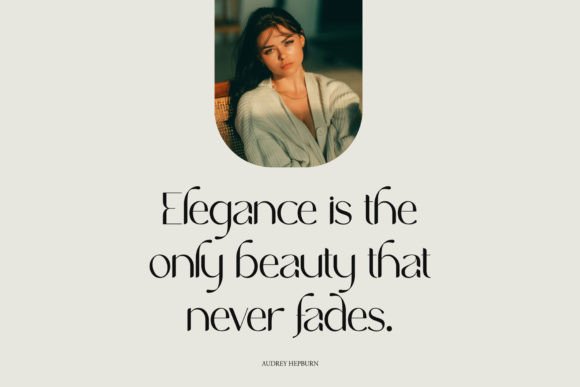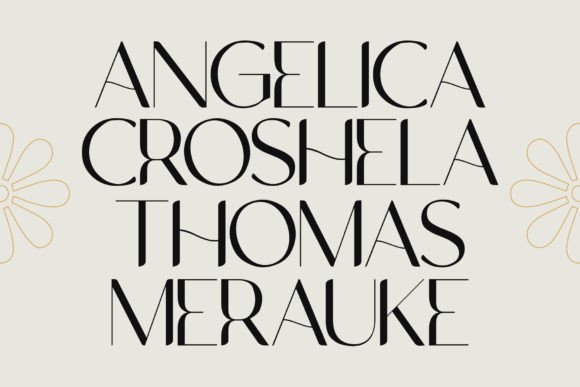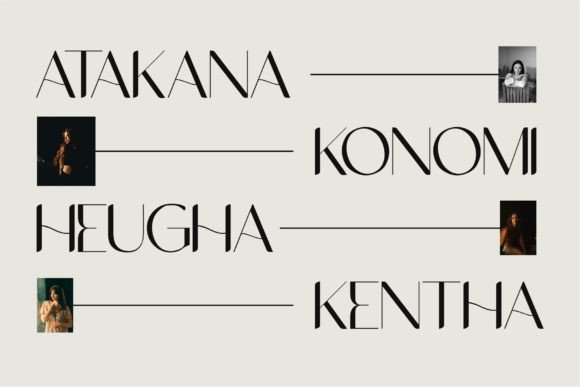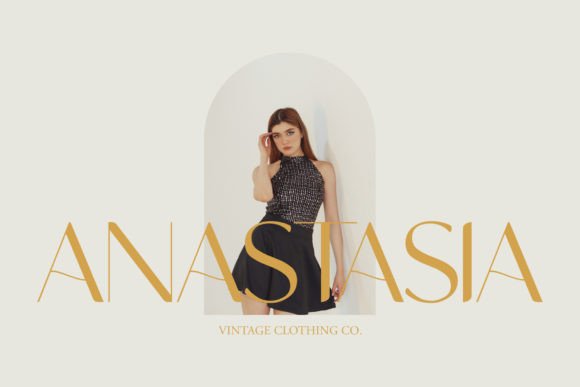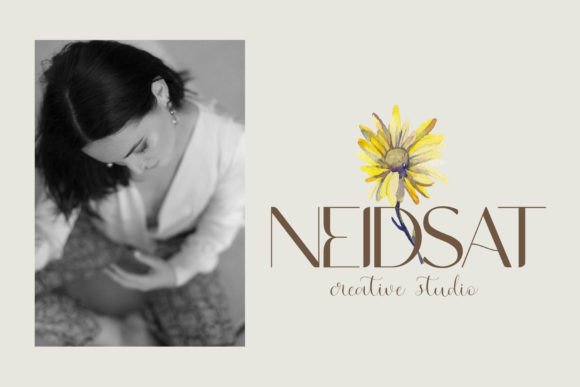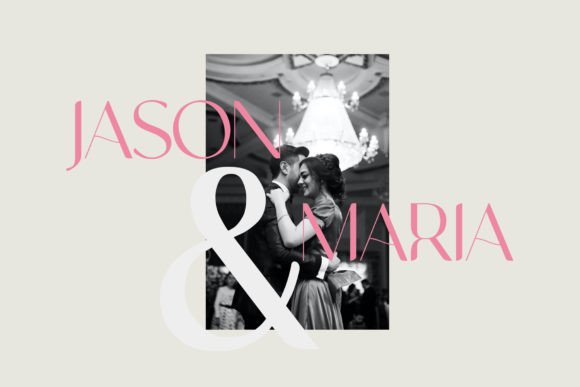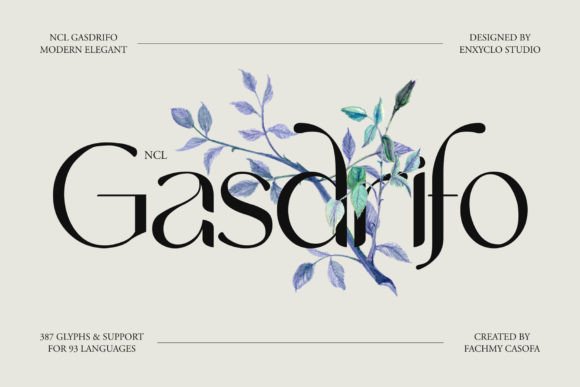
Introducing Gasdrifo Font: Elevate Your Designs with Elegance
In the world of typography, a font can make or break a design. It’s the foundation upon which creativity is built, and the right choice can elevate a project from ordinary to extraordinary. For designers and crafters seeking a modern, elegant font that can bring their ideas to life, look no further than Gasdrifo. This stunning font is designed to impress, with a masterful blend of style and versatility that makes it perfect for a wide range of applications.
The Design Behind Gasdrifo
Gasdrifo is a modern elegant font, carefully crafted to become a true favorite among designers. Its creator purposely designed it to shine in large point sizes, where its intricate details and flowing lines can be fully appreciated. However, its beauty doesn’t diminish when used in smaller point sizes, making it an incredibly versatile addition to any font library.
Whether you’re working on a wedding invitation, a billboard, a magazine spread, a website header, a poster, or a branding project, Gasdrifo is the perfect choice. Its elegant lines and sophisticated style make it suitable for a wide range of topics and themes. From luxury brands to creative agencies, and from digital media to print publications, Gasdrifo can help you make a lasting impression.
Key Features of Gasdrifo Font
• Modern Elegance: Gasdrifo boasts a contemporary design that’s both stylish and sophisticated.
• Versatility: Use it in large or small point sizes without losing its impact.
• Wide Range of Applications: Perfect for weddings, headlines, billboards, magazines, websites, titles, posters, branding, and logos.
• Easy to Read: Despite its elegant design, Gasdrifo remains highly legible, even at smaller sizes.
Why Choose Gasdrifo?
In a sea of fonts, Gasdrifo stands out for several reasons. Firstly, its unique design combines modern trends with classic elegance, making it a standout in any project. Secondly, its versatility means you can use it across various mediums and applications, from digital platforms to print materials. Lastly, Gasdrifo has the potential to elevate any creation, helping your project stand out from the rest.
Tips for Using Gasdrifo Effectively
To get the most out of Gasdrifo, consider the following tips:
• Pair it with Simplicity: Let Gasdrifo be the star of your show by pairing it with simpler fonts or backgrounds.
• Experiment with Sizes: While Gasdrifo shines in large sizes, don’t be afraid to experiment with smaller sizes to add subtle elegance to your designs.
• Play with Colors: While Gasdrifo looks stunning in black, experiment with colors to match your brand or project’s aesthetic.
Gasdrifo is more than just a font; it’s a design asset that can transform your projects. With its modern elegance, versatility, and wide range of applications, it’s an excellent choice for designers and crafters looking to elevate their designs. Whether you’re working on a high-profile branding project or a personal craft, Gasdrifo has the potential to bring your creative ideas to the highest level. Add Gasdrifo to your font library today and discover the difference it can make.